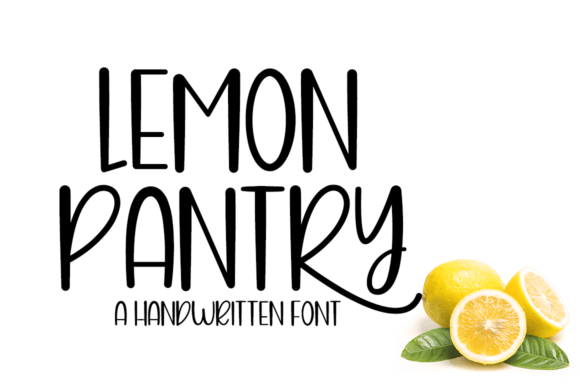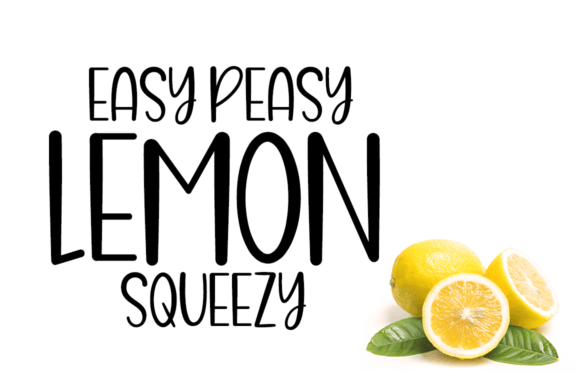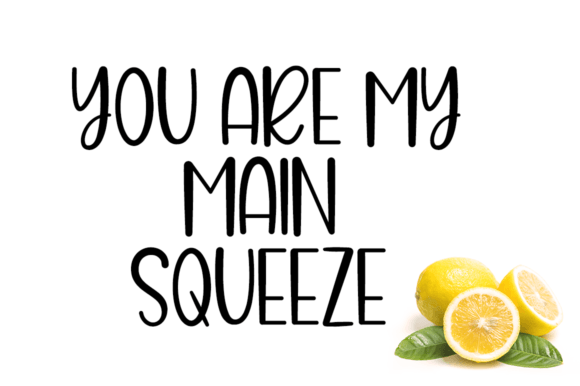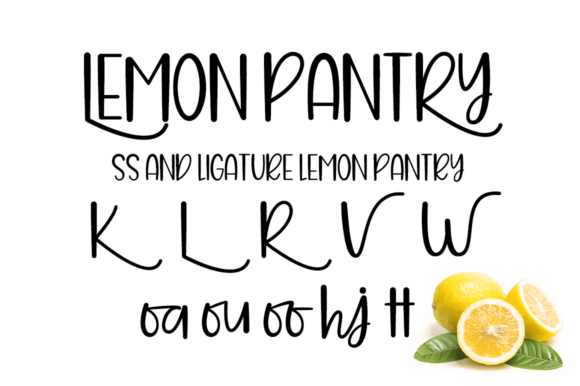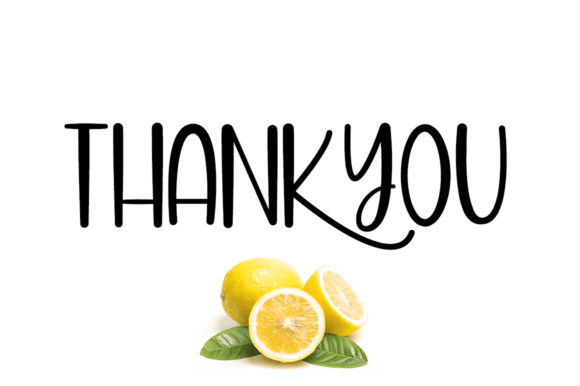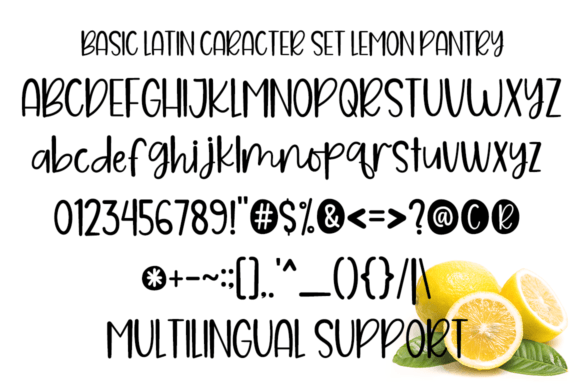
Lemon Pantry
Lemon Pantry Font: Playful Handwritten Style for Joyful Designs
Introducing Lemon Pantry – the handwritten font that bubbles with personality! Its slightly irregular baseline and organic strokes capture the energy of hand-drawn lettering, making every word feel alive with spontaneous charm.
Why Creatives Love Lemon Pantry
• Quirky Character Set: Includes imperfect alternate glyphs
• Dynamic Flow: Letters dance with 15% baseline variation
• Bonus Elements: Comes with 50 hand-drawn doodles
• Perfect Imperfections: Intentional ink bleeds for authenticity
Best Uses for Maximum Impact
Social Media Magic
Ideal for:
• Instagram quote graphics
• YouTube thumbnail text
• Pinterest recipe cards
Branding with Personality
Transforms:
• Artisan bakery packaging
• Children’s activity books
• Craft business logos
🎨 Designer Hack: Pair with bright citrus colors (#FFD166 + #06D6A0) for maximum playful effect.
Style Combinations
1. Retro Mix: Combine with Barlow Condensed
2. Modern Twist: Use alongside Montserrat Light
3. Childlike Wonder: Pair with Fredoka One